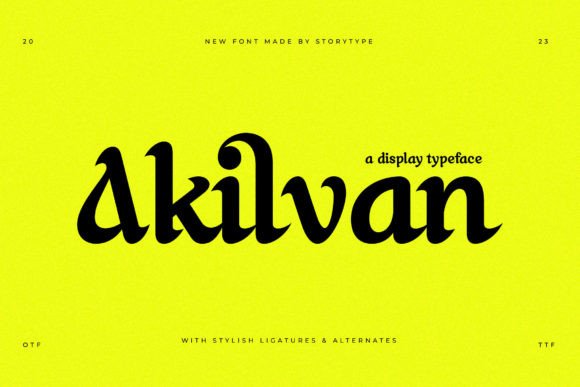
Step into a world of timeless elegance with Akilvan Typeface, a serif font family born from the fusion of modern and classic aesthetics. Designed by Storytype Studio, this typeface exudes an air of sophistication that will elevate your designs to new heights.
Akilvan's graceful curves and sharp serifs evoke a sense of luxury and refinement. Its versatile nature makes it the perfect choice for a wide range of design projects, from stunning wedding invitations and romantic love letters to sophisticated logos and captivating marketing materials.
Unleash your creativity and let Akilvan's timeless beauty transform your words into works of art. Whether you're a seasoned designer or just starting your design journey, Akilvan will effortlessly elevate your projects with its timeless charm.
Indulge in the sheer elegance of Akilvan Typeface and experience the joy of creating designs that resonate with your audience. Its ability to effortlessly elevate any project is truly remarkable.